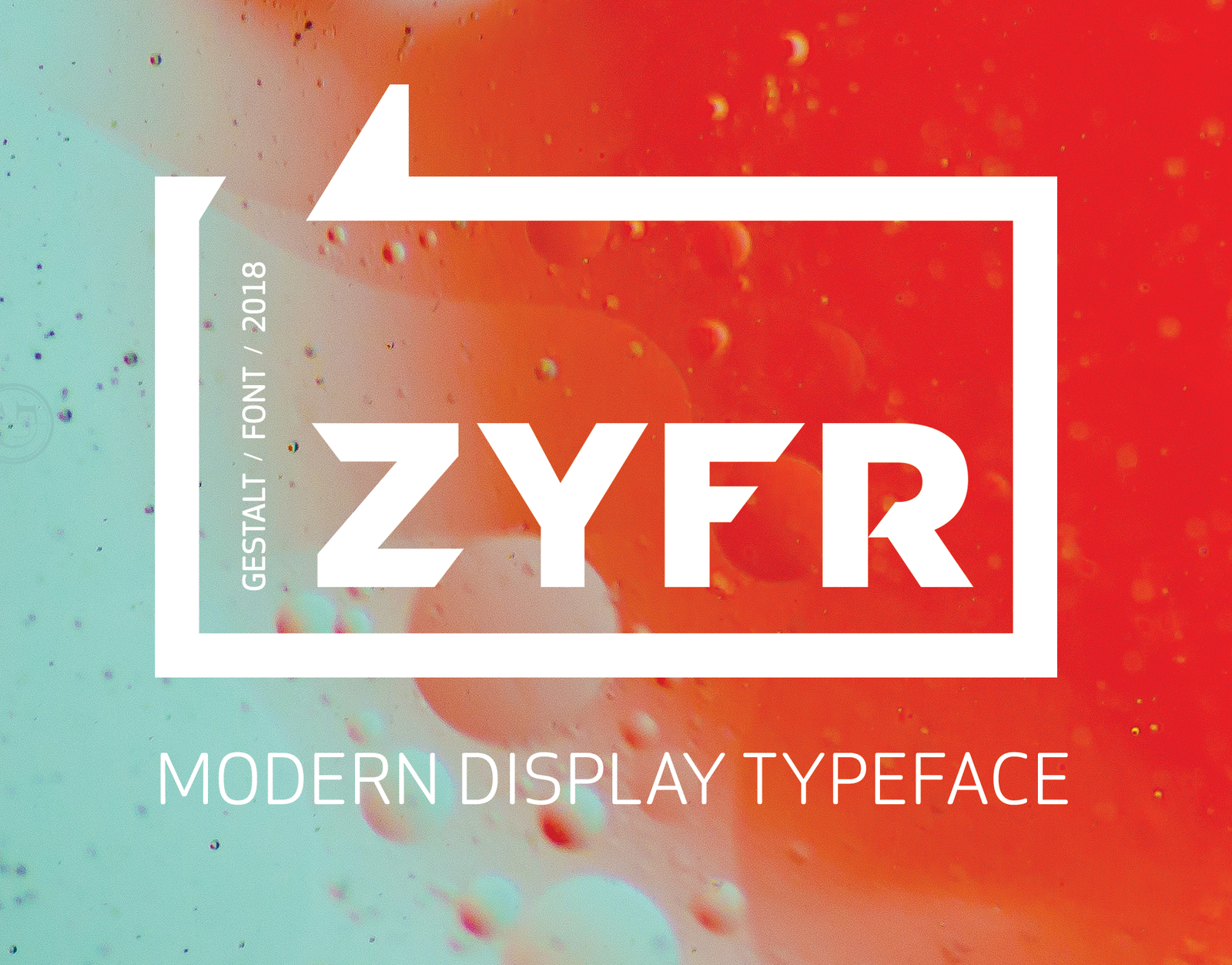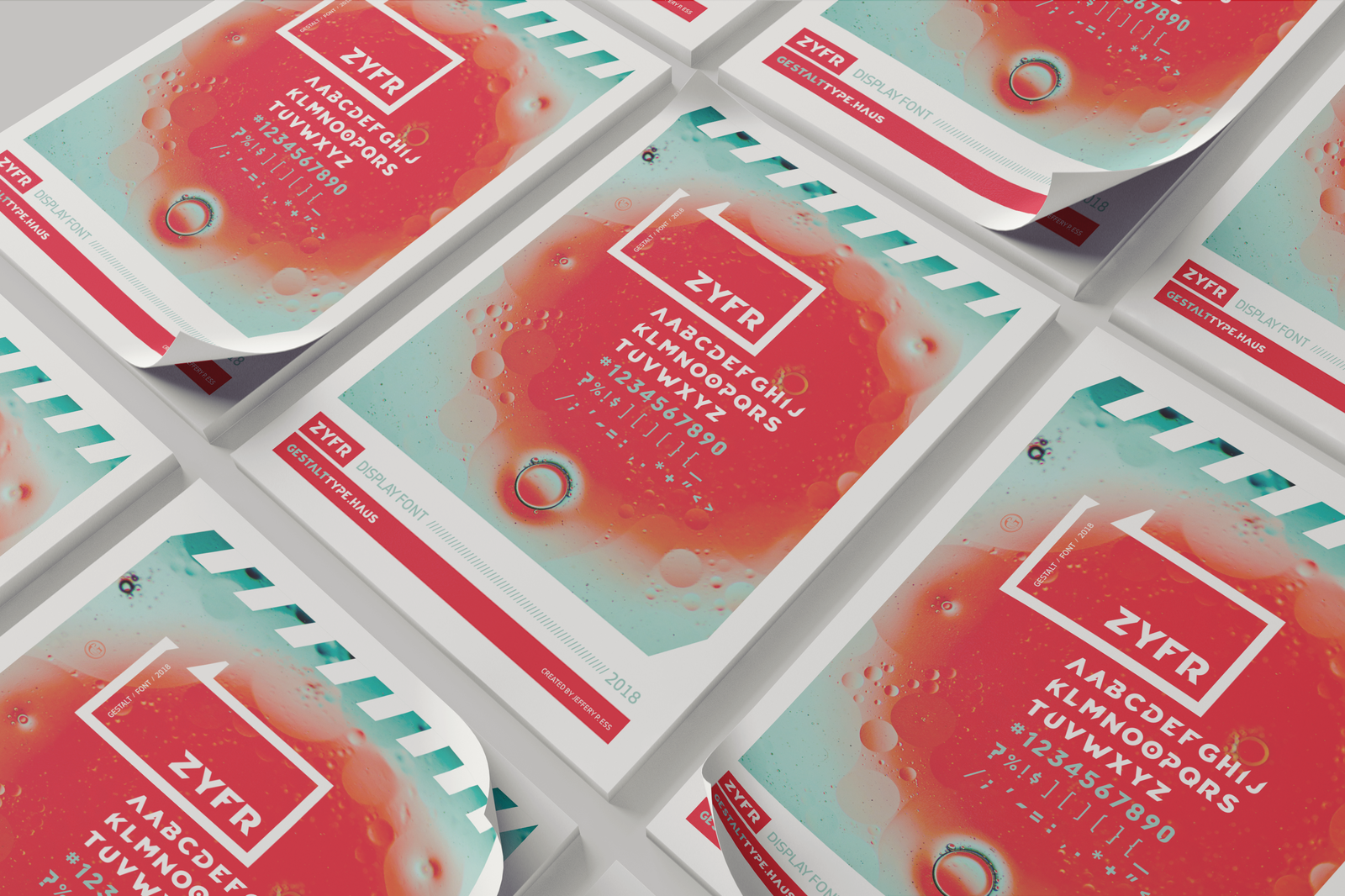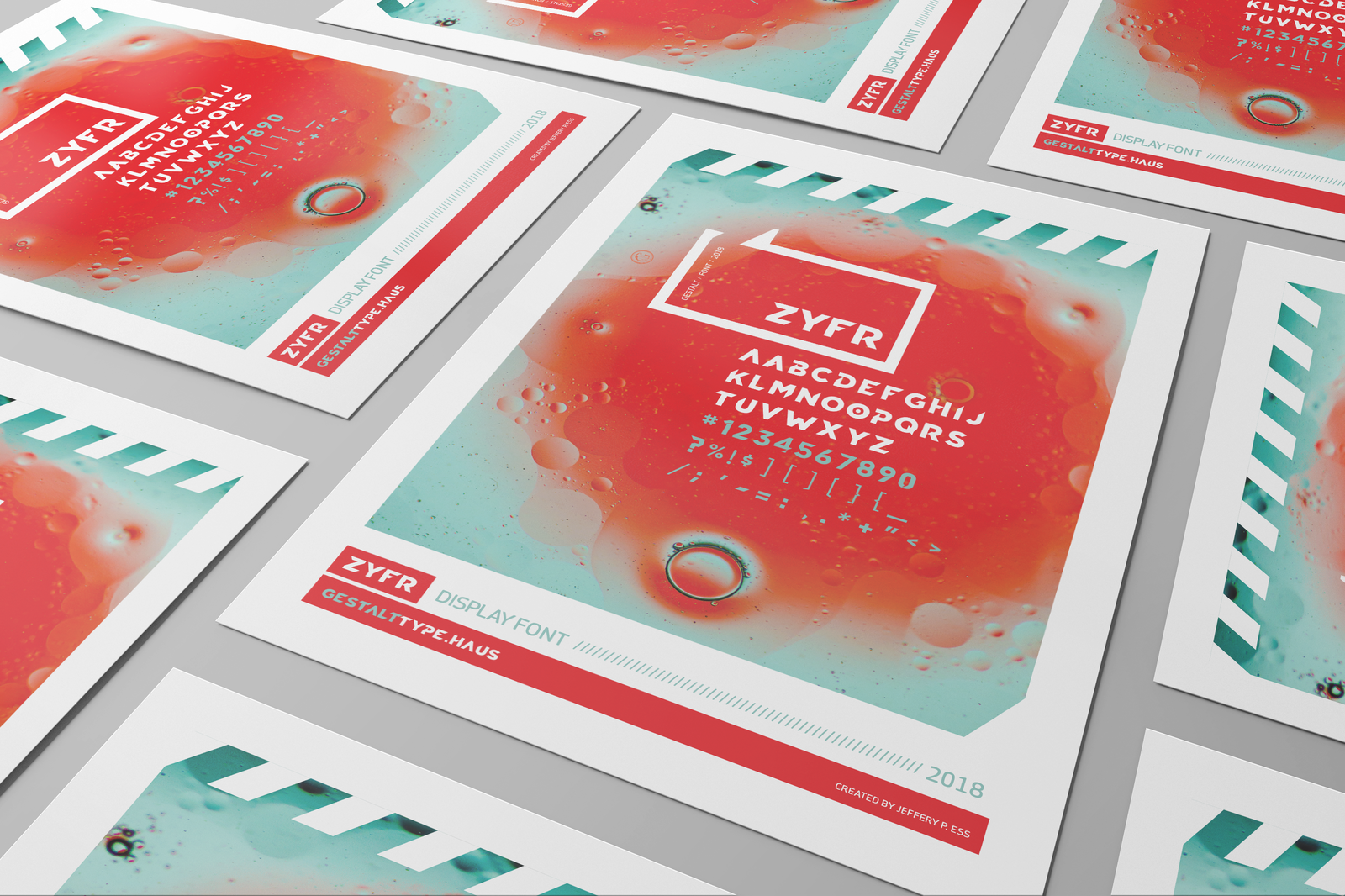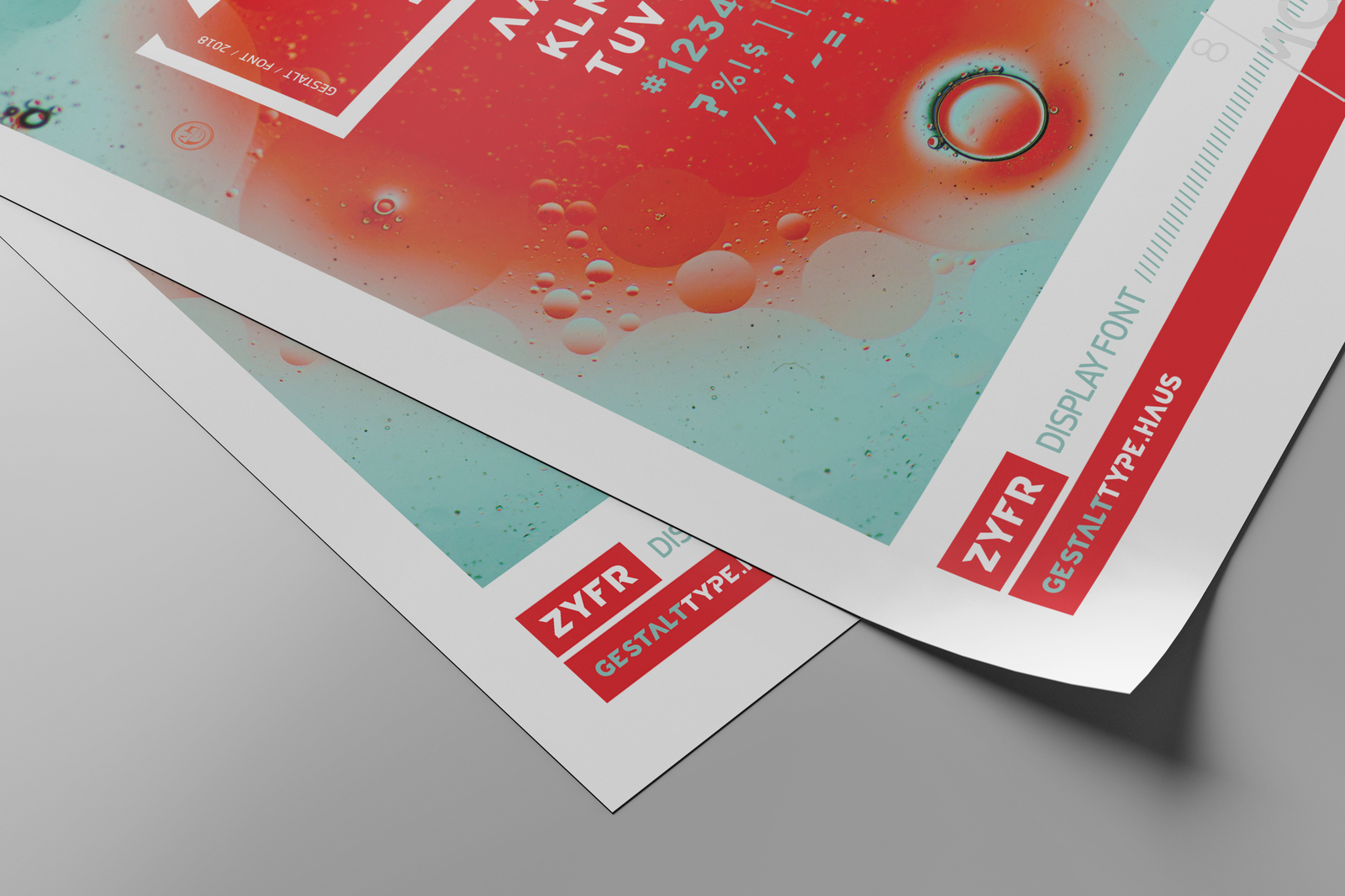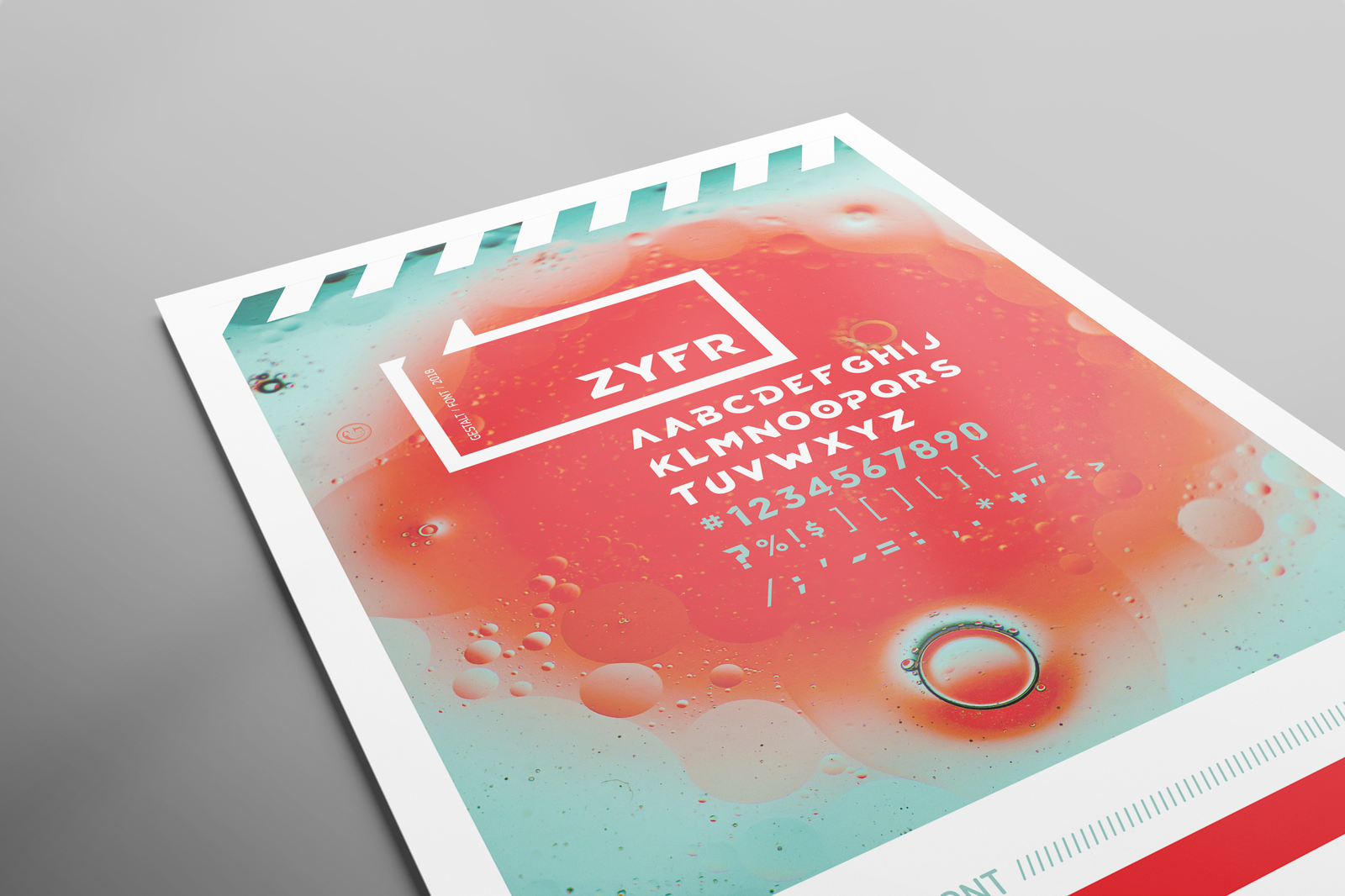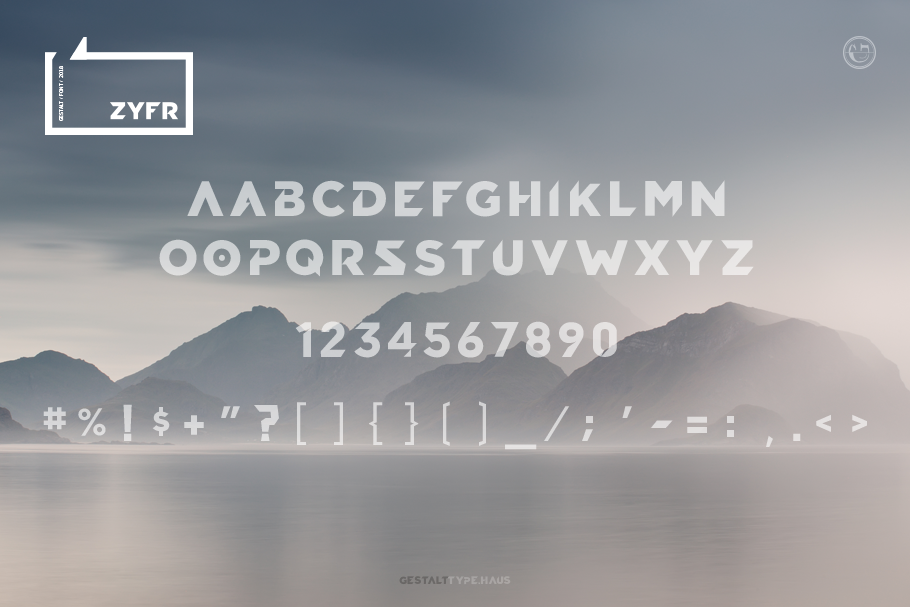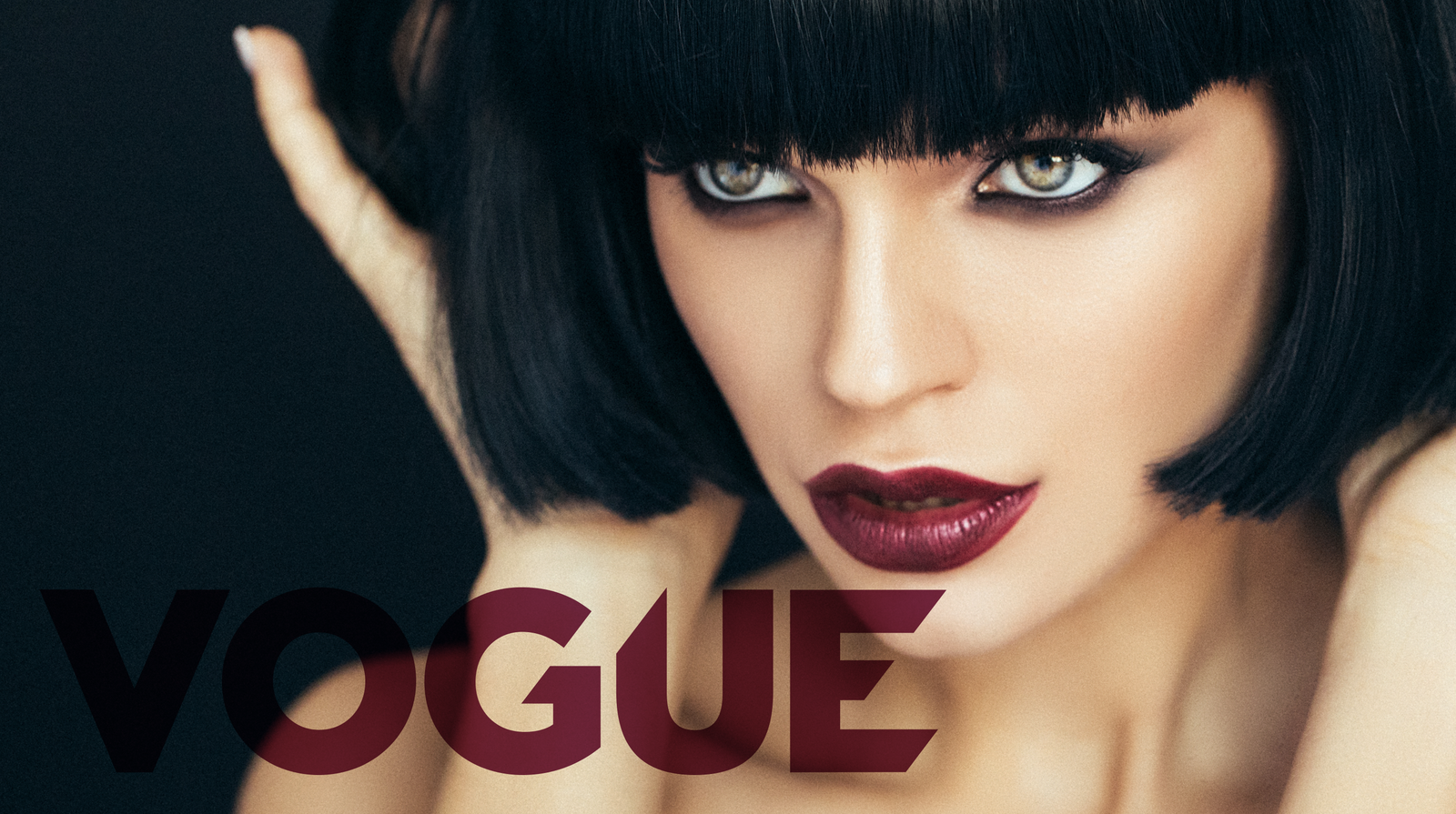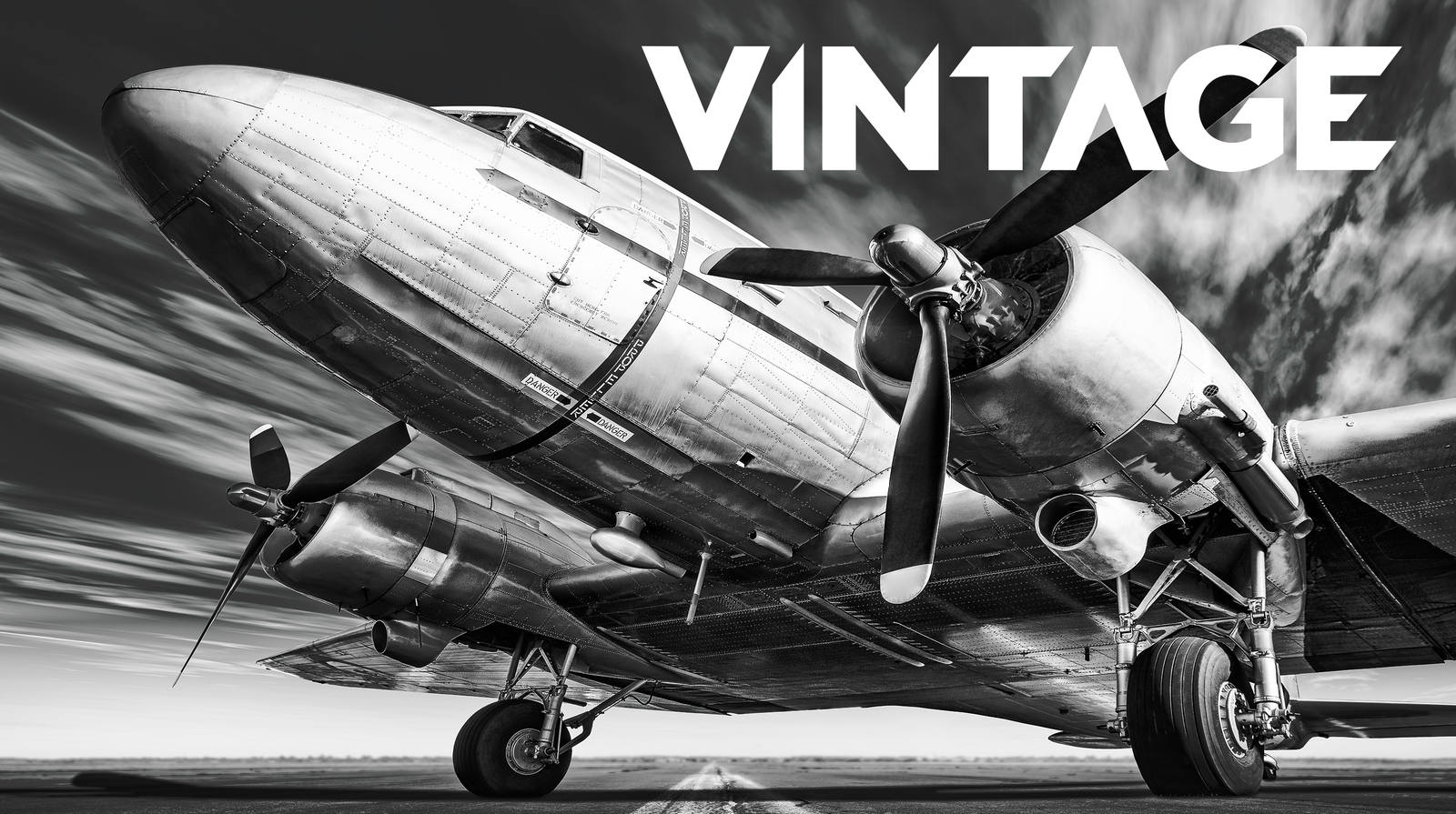
ZYFR // Display Font - By Jeffery P. Ess
Introducing ZYFR, a modern display typeface.
I was recently inspired to design a typeface that I felt missing from my own catalog.
DESIGN USE: ZYFR was designed to become an instant LOGOTYPE just by typing the word. The weight of the font allows it to scale very small with integrity. Use this typeface to communicate the name of a product or brand name. Use it on a poster or for a band name. Dial the attitude up or down by using some of the alternate characters. By simply toggling between lower and uppercase with a few of the characters (i.e.; Aa, Oo, Ss), This allows you to achieve instant gratification by allowing you to quickly recognize a typographic opportunity and inspire you to make quick graphical decisions instantly.
This font is not fussy and it was designed not to get in the way of the message. Very nicely, the weight of ZYFR allows for a sophisticated gallery feel when adding a secondary light weight serif or san serif typeface to it. The weight difference will instantly compliment each of them in the context of a subhead or body copy. Texture is everything.
I took the perspective of the client and I wanted something that looked progressive by nature and yet seamlessly timeless. I wanted it to feel vintage and yet clean. I wanted something that I could instantly dial the identity up and down. Something strong enough to play front and center and yet not too over powering.